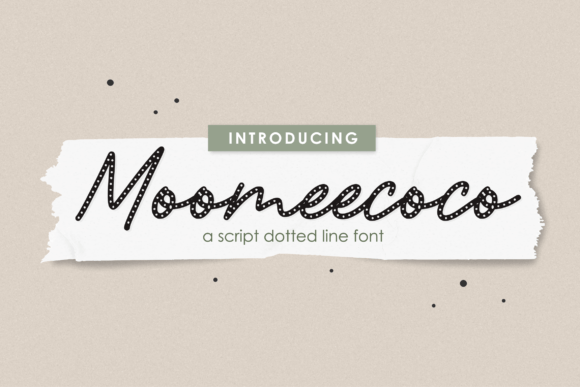
Step into the world of Moomeecoco, an enchanting script font that weaves a tapestry of elegance and playfulness. Inspired by the whimsical charm of dotted lines, this font dances across your designs, captivating hearts and leaving a trail of creative magic. Whether you're a seasoned designer or a novice adventurer seeking to express your unique style, Moomeecoco is your perfect companion.
Enter a world where words dance with a delicate touch and emotions find their perfect voice. Moomeecoco's meticulously crafted characters, adorned with graceful curves and playful flourishes, effortlessly evoke a sense of wonder and whimsy. Let your imagination soar as you create designs that reflect your true essence, leaving an unforgettable mark on your audience.
With its versatility and adaptability, Moomeecoco effortlessly adapts to your creative vision, whether you're crafting captivating product packaging, building a brand that resonates with your audience, designing stylish magazines, or engaging with the world through social media. Its boundless potential extends to the most special occasions, adding a touch of enchantment to wedding invitations and greeting cards.
Unlock a font that whispers creativity and fuels your imagination. Moomeecoco is more than just a font; it's a gateway to a world of endless possibilities. Its presence in your font library will inspire you to explore new avenues of expression, transforming your designs into captivating masterpieces that leave a lasting impression.